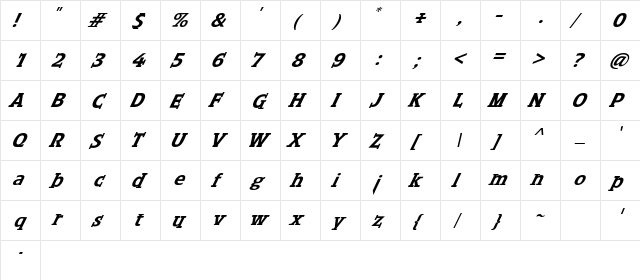
ShirtLettersItalicsMax Regular
Design Context for ShirtLettersItalicsMax Typeface
ShirtLettersItalicsMax offers clean, dependable letterforms without strong stylistic allegiance, making it a practical choice for designers who need flexibility. Its italic angle brings a sense of urgency and motion to the letterforms.
Pro Tip: Use ShirtLettersItalicsMax for emphasis, pull quotes, and subheadings where its slanted energy can add rhythm to the layout.